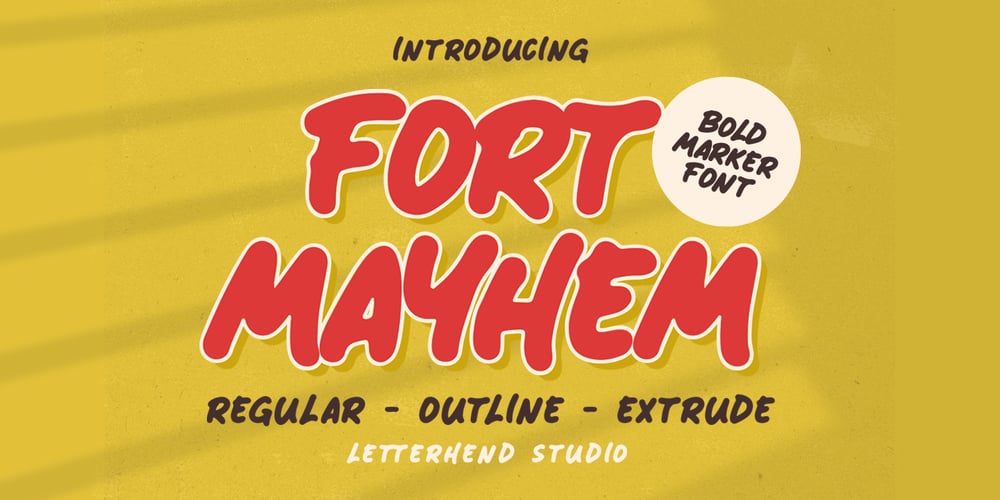
Fort Mayhem Font Family was designed by Hendry Juanda and published by Letterhend. Fort Mayhem contains 6 styles and family package options. Fort Mayhem is a display marker font with hand drawn feel. The strokes make this font outstanding and looks great for title. This type of font perfectly made to be applied especially in logo, headline, signage and the other various formal forms such as invitations, labels, logos, magazines, books, greeting / wedding cards, packaging, fashion, make up, stationery, novels, labels or any type of advertising purpose.Features : 3 Styles-Regular, Extrude, & Online numbers and punctuation multilingual alternates / swashes and ligatures PUA encoded We highly recommend using a program that supports OpenType features and Glyphs panels like many of Adobe apps and Corel Draw, so you can see and access all Glyph variations.